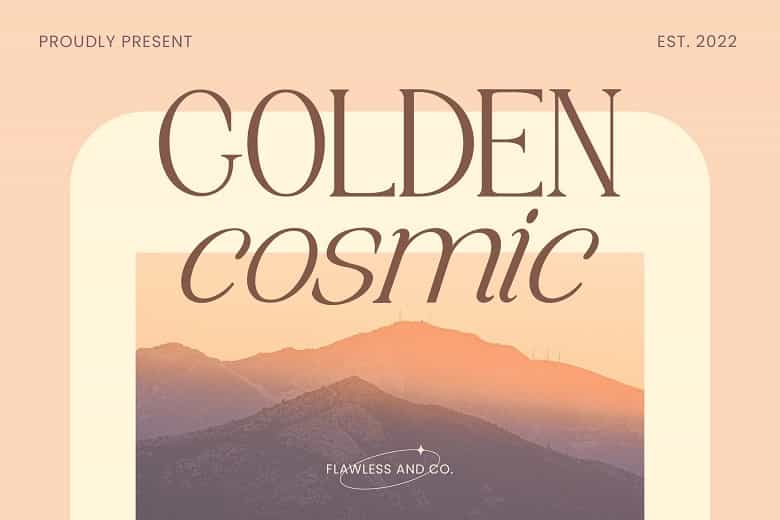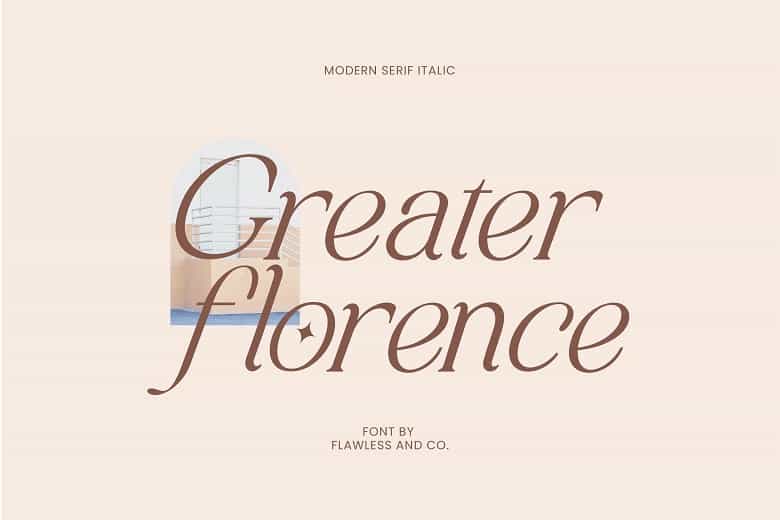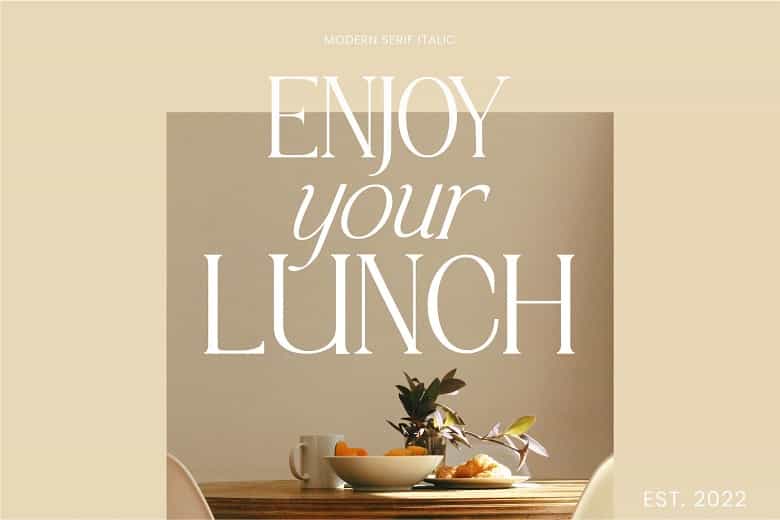
Golden Cosmic is a modern and classy font in the serif font. Whether the given topic is secular or religious, this font will be very useful to anyone who is designing a document or project because it can improve any creation.